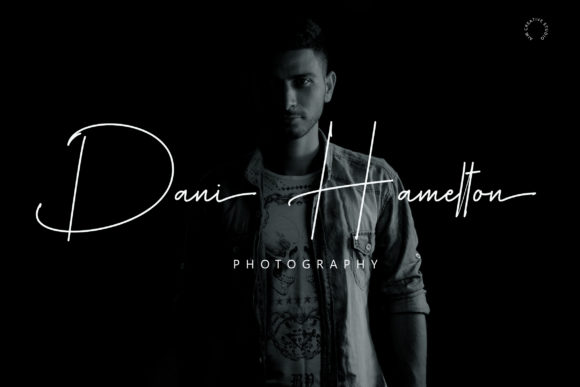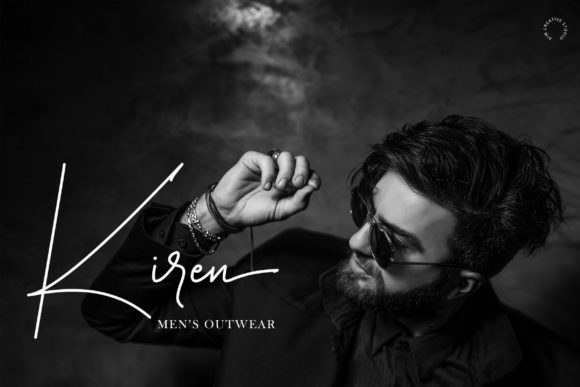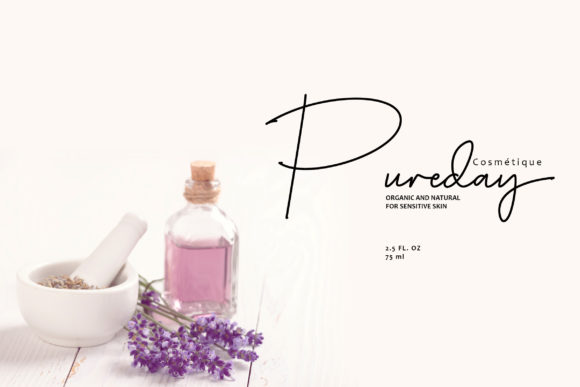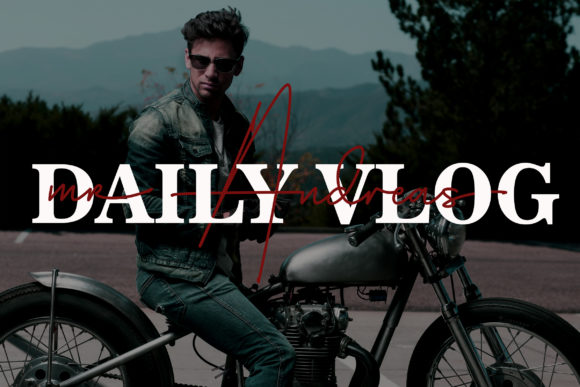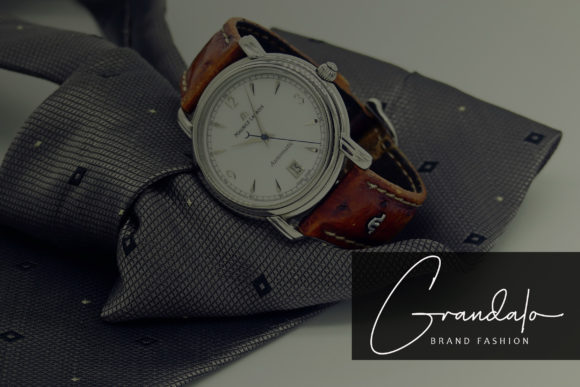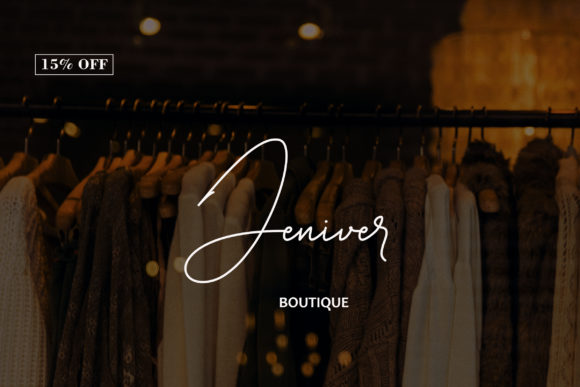
Introduction to Renadar Font
Have you ever stared at a blank canvas, trying to conjure up the perfect words to bring your creative project to life? It’s that moment of blank page anxiety that we’ve all experienced at some point. But what if I told you that there’s a secret ingredient that can elevate your design from ordinary to extraordinary? Enter the enchanting world of the Renadar Font, a magical handwritten font that adds a touch of elegance to any project.
As a designer, you know that the right font can make all the difference in bringing your vision to life. And that’s exactly why the Renadar Font is a valuable addition to your design resource arsenal. With its high-quality design and transparent background, this font is perfect for creating stunning visuals that pop on any platform, from Instagram to your latest DIY project.
Key Features of Renadar Font
- High-quality, professional design suitable for various creative projects, including logos, branding, and typography.
- Comes with a transparent background, allowing for easy customization and integration into different design elements.
- Features a unique, modern aesthetic that can add a touch of sophistication to any design project.
- Supports various languages, making it a versatile design resource for global creative projects.
Honest Review: Renadar Font
As a designer, I’m always on the lookout for high-quality design resources that can elevate my creative projects. The Renadar Font is one such resource that I recently stumbled upon, and I must say, it’s been a game-changer for me.
What works well with the Renadar Font is its sleek and modern design. The font is available as a free download, making it a fantastic addition to any design project. The transparent background is a nice touch, allowing for seamless integration with any design element. The font’s high quality is evident in its crisp lines and clean typography.
- ✨ The font’s versatility makes it suitable for a wide range of creative projects, from branding to digital design.
- ✨ The transparent background is a nice feature that adds to the font’s overall flexibility.
One limitation of the Renadar Font is its limited font weight options. While it’s not a major issue, it would be great to see more font weights added to the collection.
Overall, I’m impressed with the Renadar Font. Its high quality, sleek design, and free download option make it a fantastic design resource. While it may have some limitations, it’s definitely worth checking out for any designer looking to elevate their creative projects.
Introduction to Renadar Font
The Renadar Font is commonly used for headings, titles, and body text in creative projects. It is also suitable for use in logos, graphics, and other design elements.
To get the most out of Renadar Font, experiment with different font sizes, colors, and combinations. You can also use the font in conjunction with other design resources to create unique and eye-catching designs.